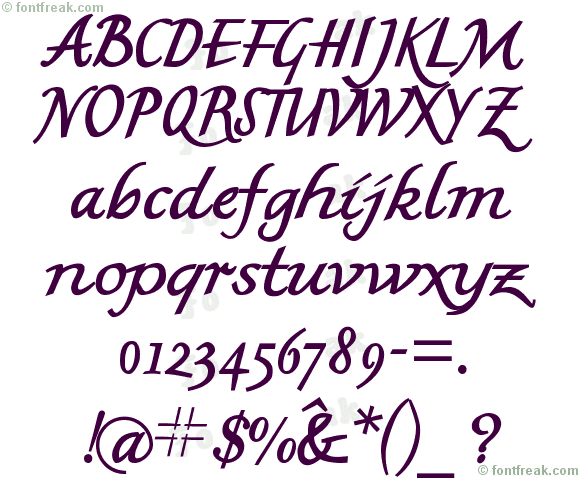
MKBritishWriting
About MKBritishWriting
MKBritishWriting is a unique script font designed by Manfred Klein, released in 1993. This font falls into the decorative category, characterized by its elegant, flowing strokes that mimic the look of traditional British handwriting. The strokes exhibit a moderate weight and gentle contrast, creating an inviting and warm appearance. The spacing between letters is carefully balanced, ensuring legibility while maintaining a graceful style. Decorative elements, such as elegant swirls and curls, enhance the font's charm, making it particularly appealing for various creative projects.
This font is versatile and can be effectively used for a range of applications. It is perfect for wedding invitations, where its sophisticated look can add a personal touch to the event. Additionally, MKBritishWriting shines in the realm of greeting cards, providing a heartfelt and bespoke design for special occasions. Restaurants can also benefit from this font on their menus, as it brings an artisanal quality that captivates diners. Moreover, graphic designers and content creators may find it ideal for crafting eye-catching logos or branding materials that convey a sense of tradition and elegance.
The target audience for MKBritishWriting includes graphic designers, small business owners, and anyone looking to add a distinctive flair to their projects. Its free availability as freeware makes it accessible to a wide range of users, from professionals to hobbyists.
What sets the MKBritishWriting font apart is its ability to blend classic charm with contemporary usability. Its unique design offers a refreshing alternative to conventional fonts, allowing creators to express their individuality and creativity. For those interested in enhancing their design toolkit, the MKBritishWriting font free download is an opportunity not to be missed.